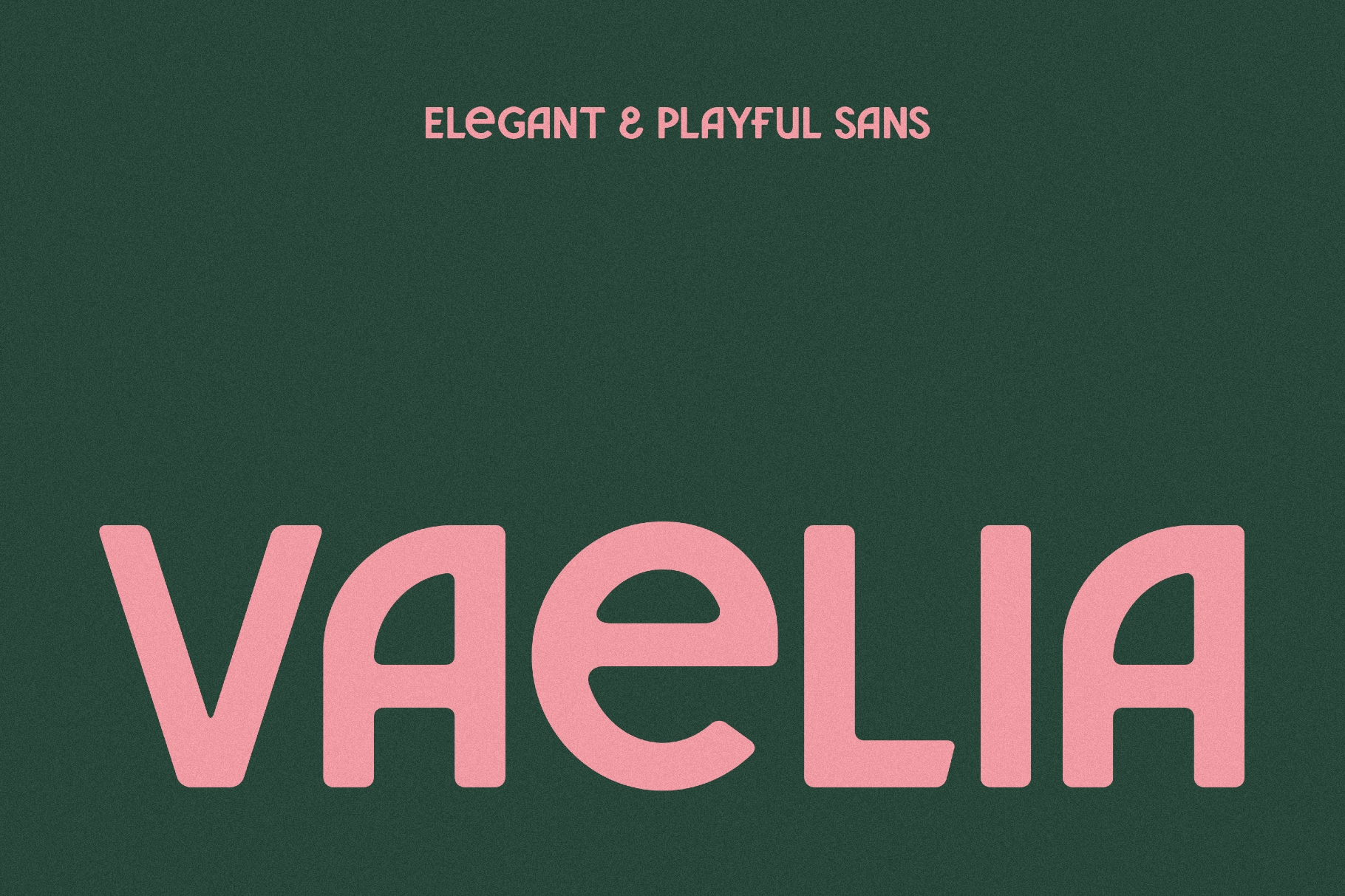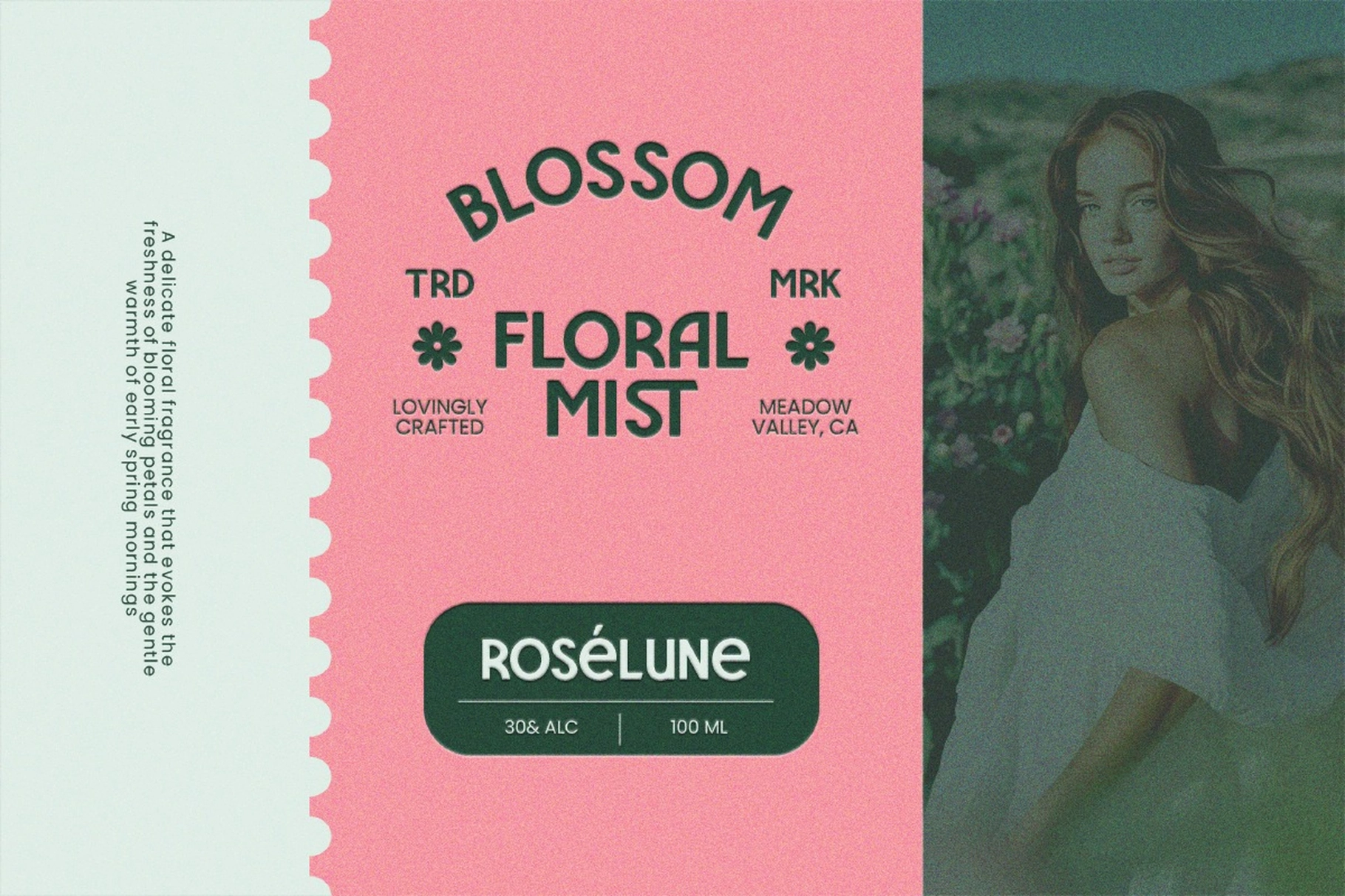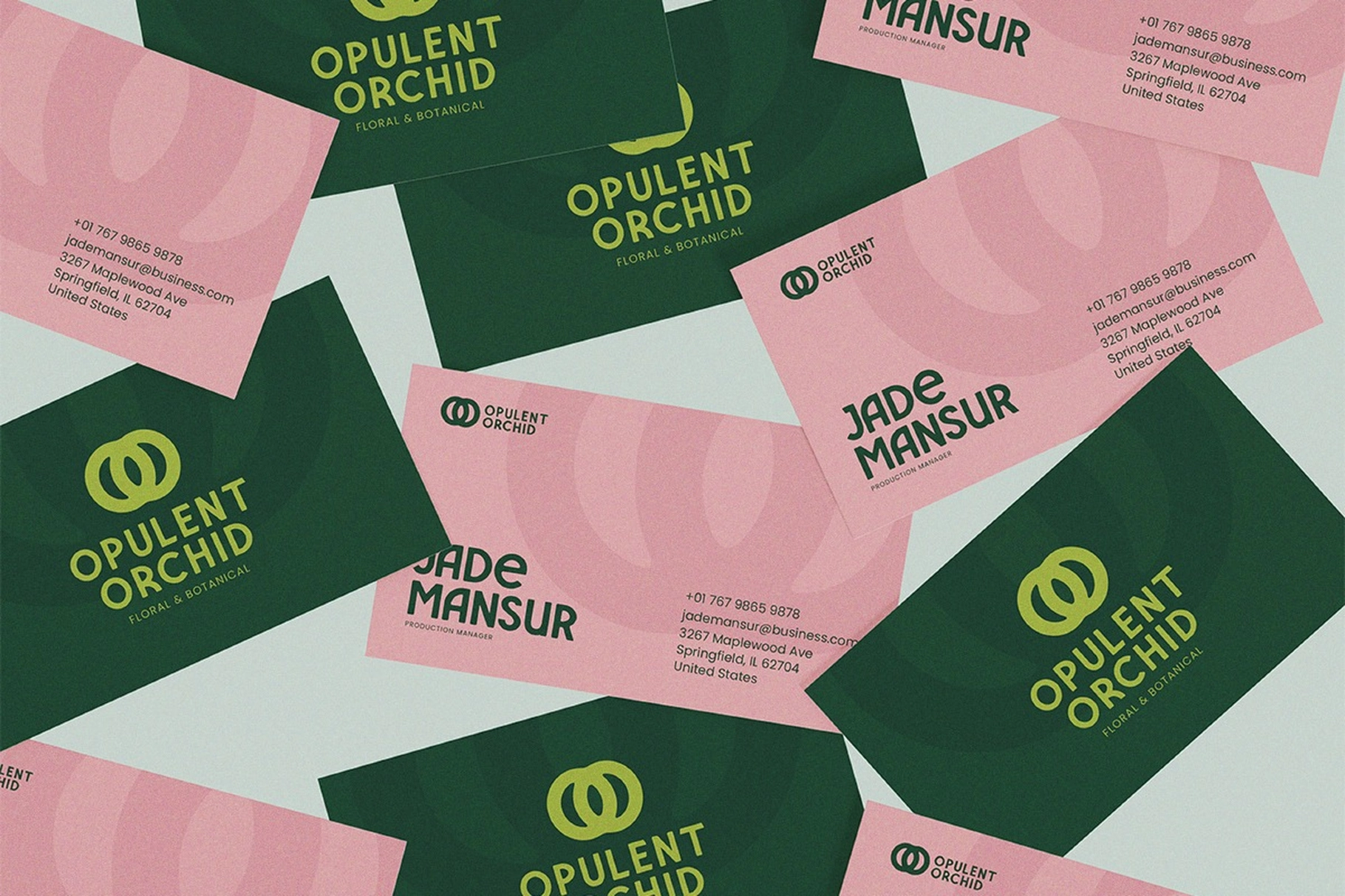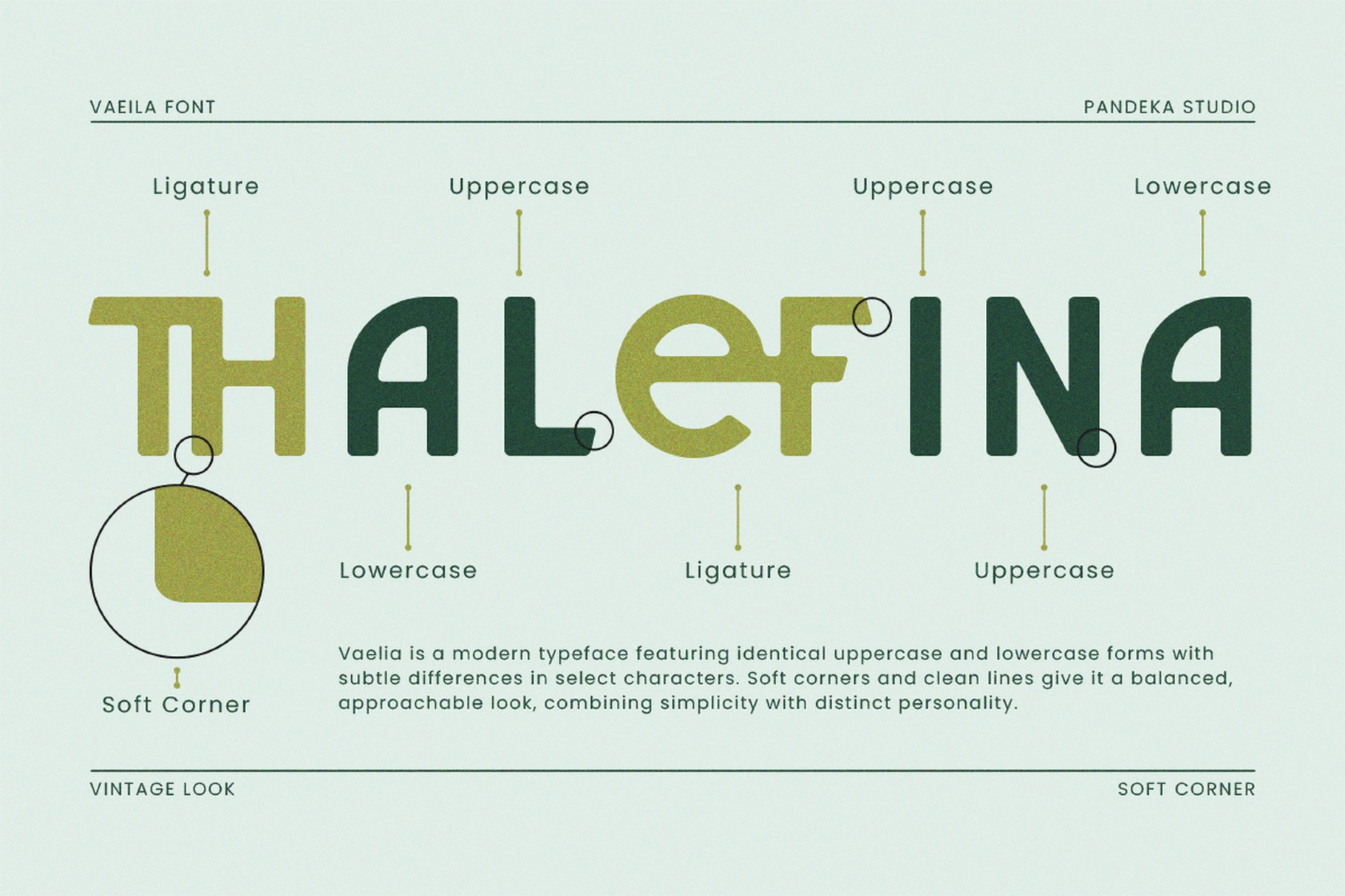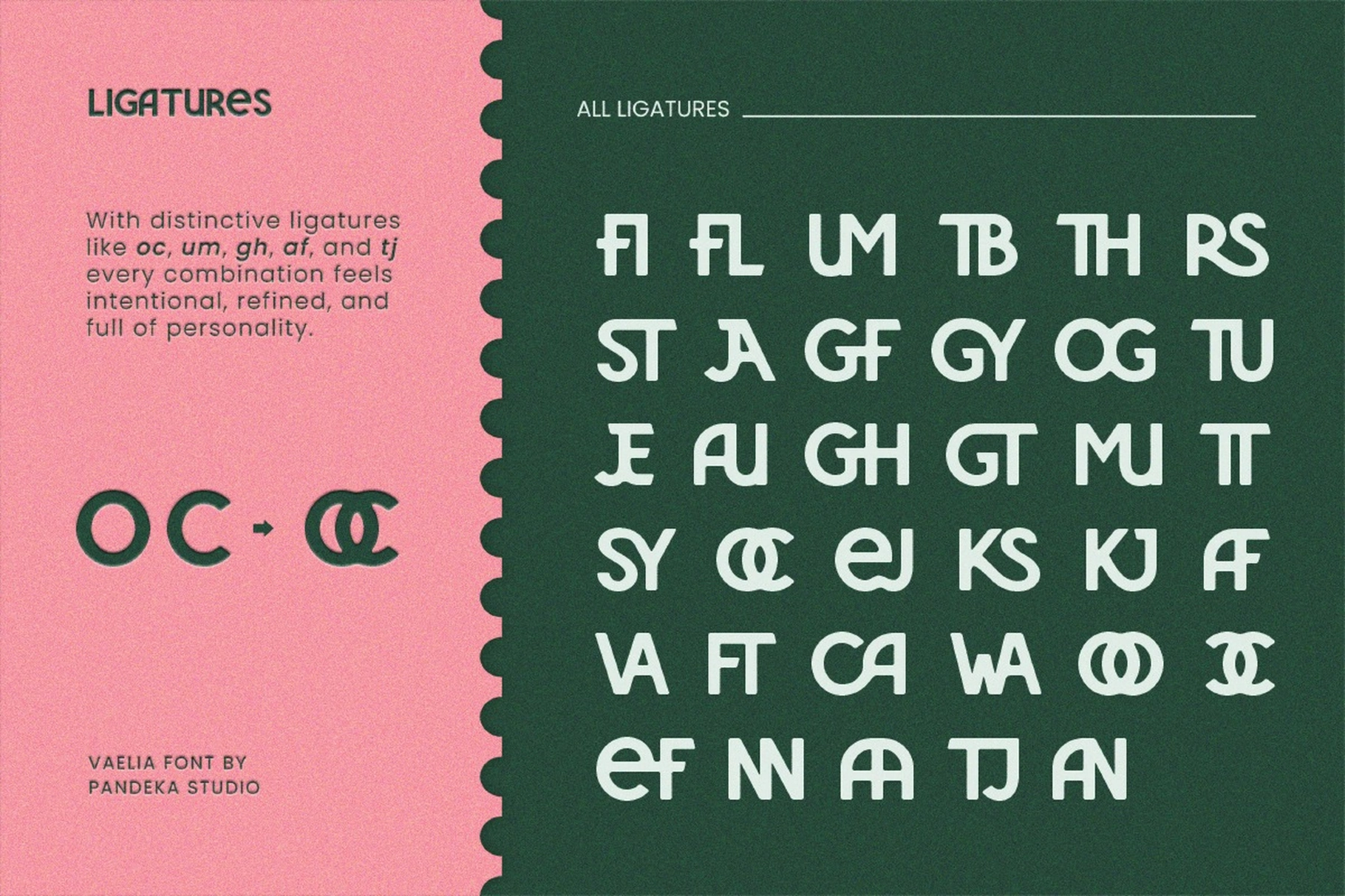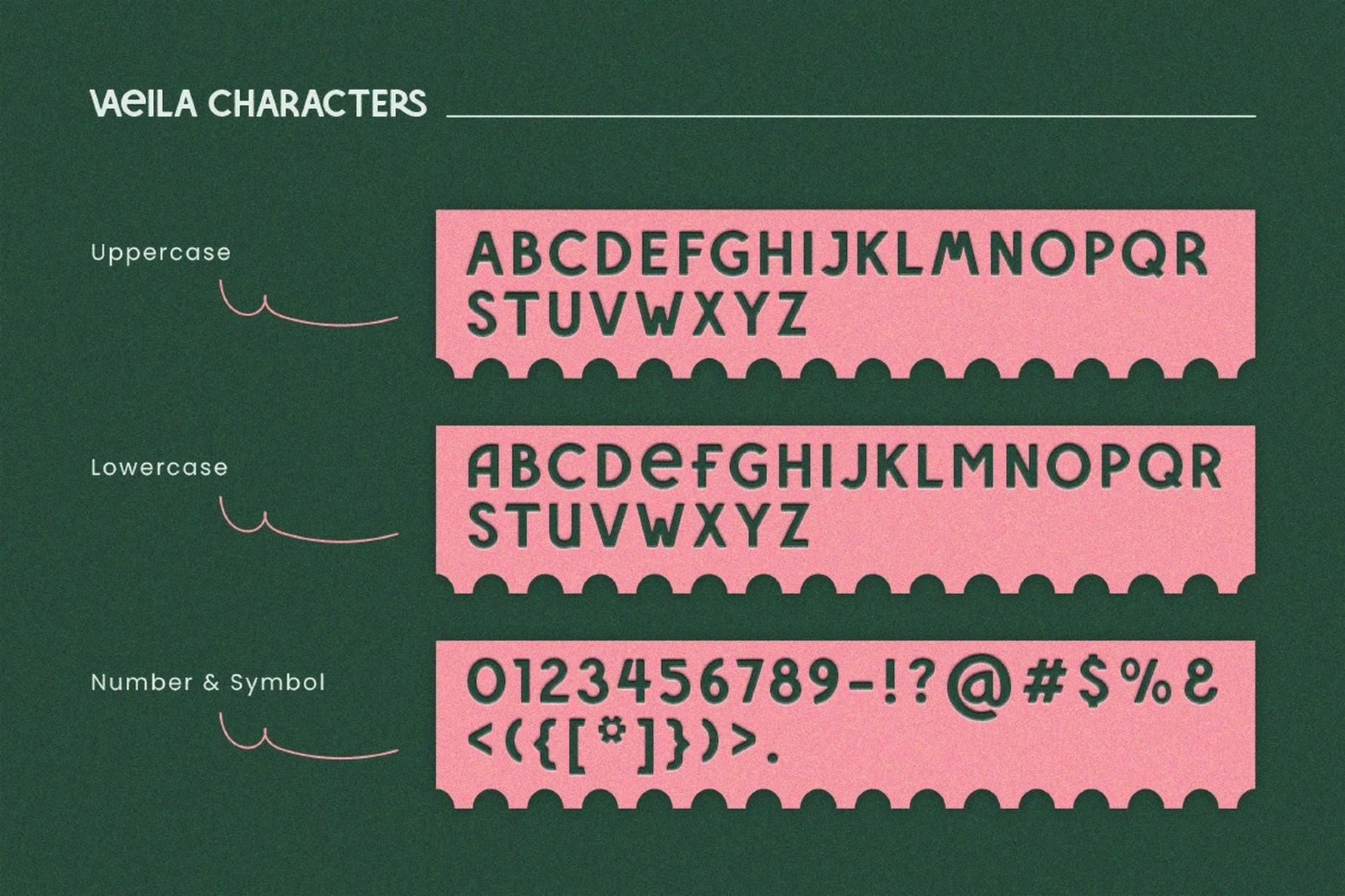
Vaelia - Elegant & Playful Sans Font
Vaelia
Vaelia rounds every corner into a soft, almost botanical curve, then lets pairs like oc, gh, and tj loop into single connected ligatures instead of sitting side by side. This rounded display font keeps its uppercase and lowercase nearly identical, so a wordmark holds the same soft, vine-like rhythm whether it's set in caps or not. It has more in common with a hand-cut produce-crate stencil than a screen-native grotesk, with just enough vintage warmth to soften a modern layout.
Use it for fashion and lifestyle branding, eco-product packaging, skincare and beauty labels, boutique signage, Instagram content, blog headers, business cards, and invitations.